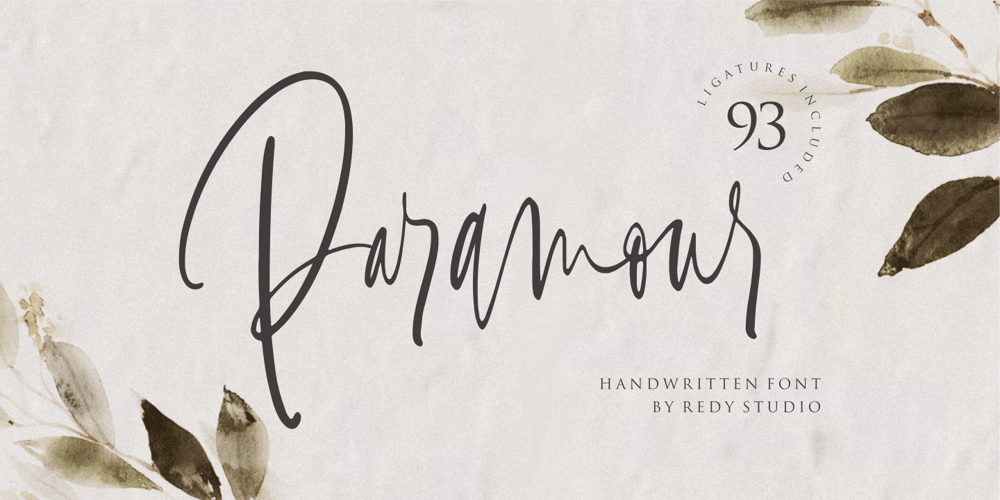
Paramour Font Family was designed by Nurul Fajri Redy and published by Redy Studio. Paramour contains 1 styles and family package options. Paramour is a handwritten font that is the perfect way to add some flirty elegance to your design. Use it to create inked-style logos, wedding stationery & photographer watermarks, or to add a handwritten look to your website’s typography. Paramour includes a full set of gorgeous uppercase and lowercase letters, numerals, a large range of punctuation, and 93 ligatures. This handcrafted typeface has been engineered to perfectly fit together.Paramour Features: A full set of upper & lowercase characters Numbers & punctuation 93 Gorgeous ligatures Multilingual symbols PUA Encoded Characters – Fully accessible without additional design software. Thank you for checking out Paramour! I hope you find it enjoyable, and feel free to give it a try below!